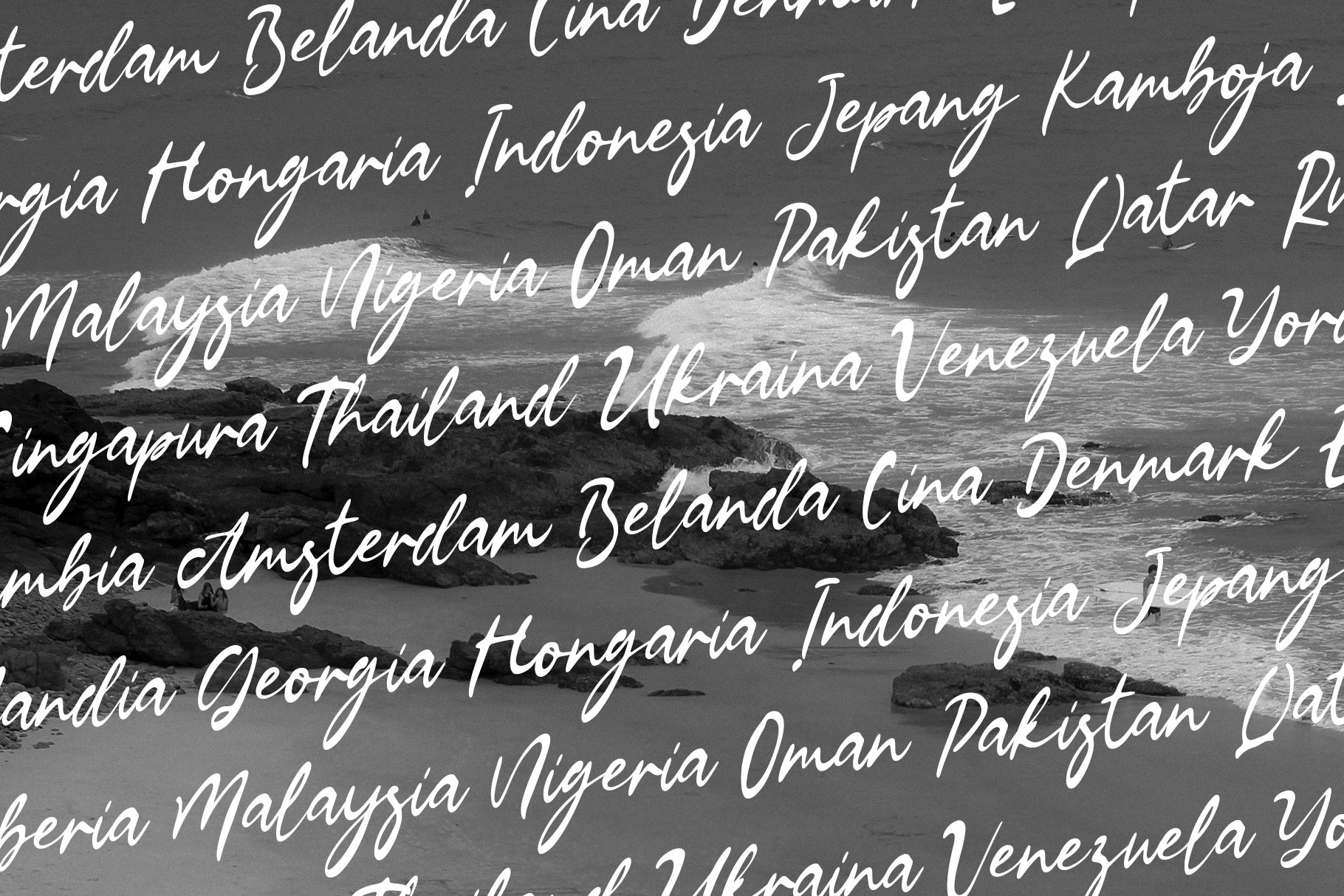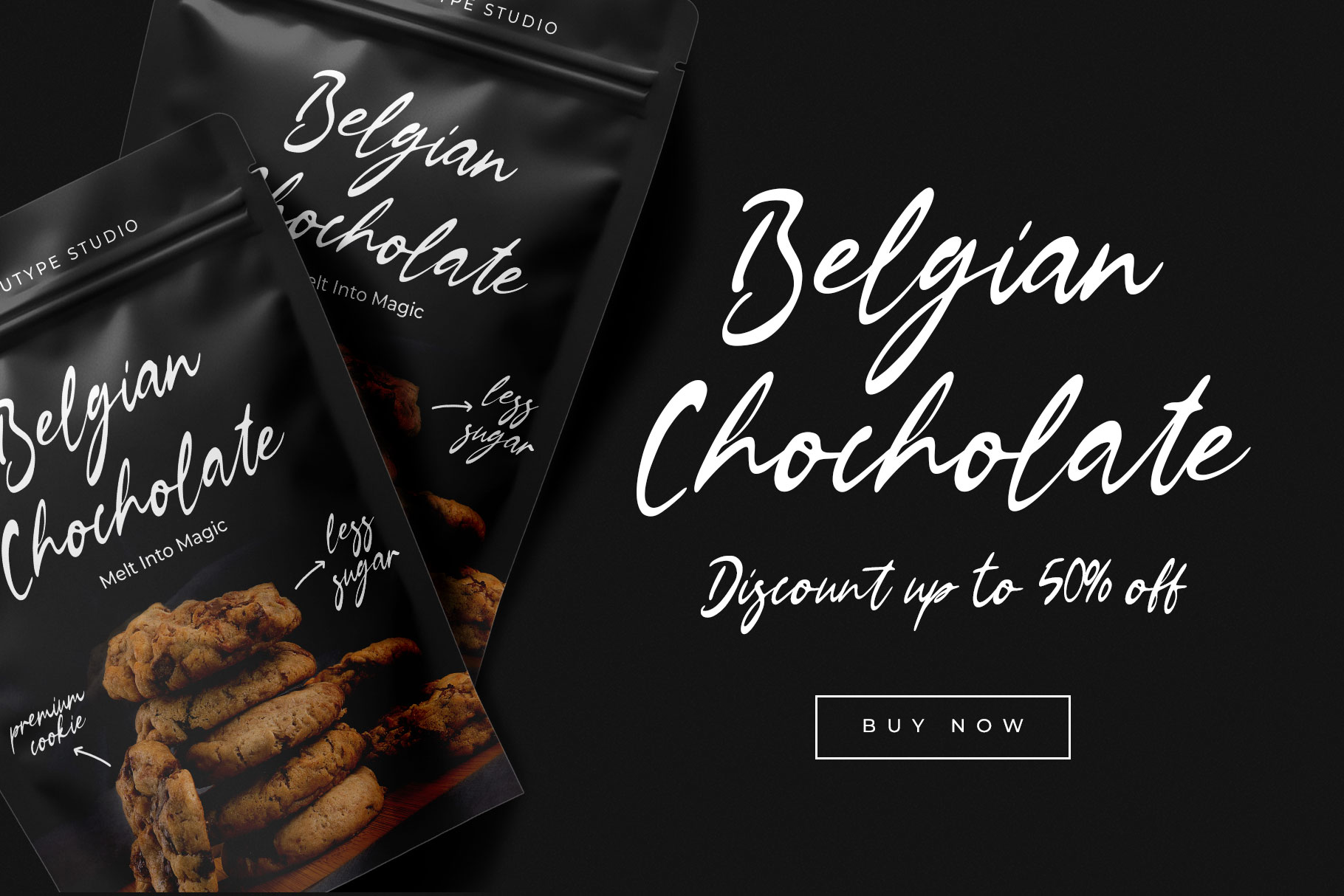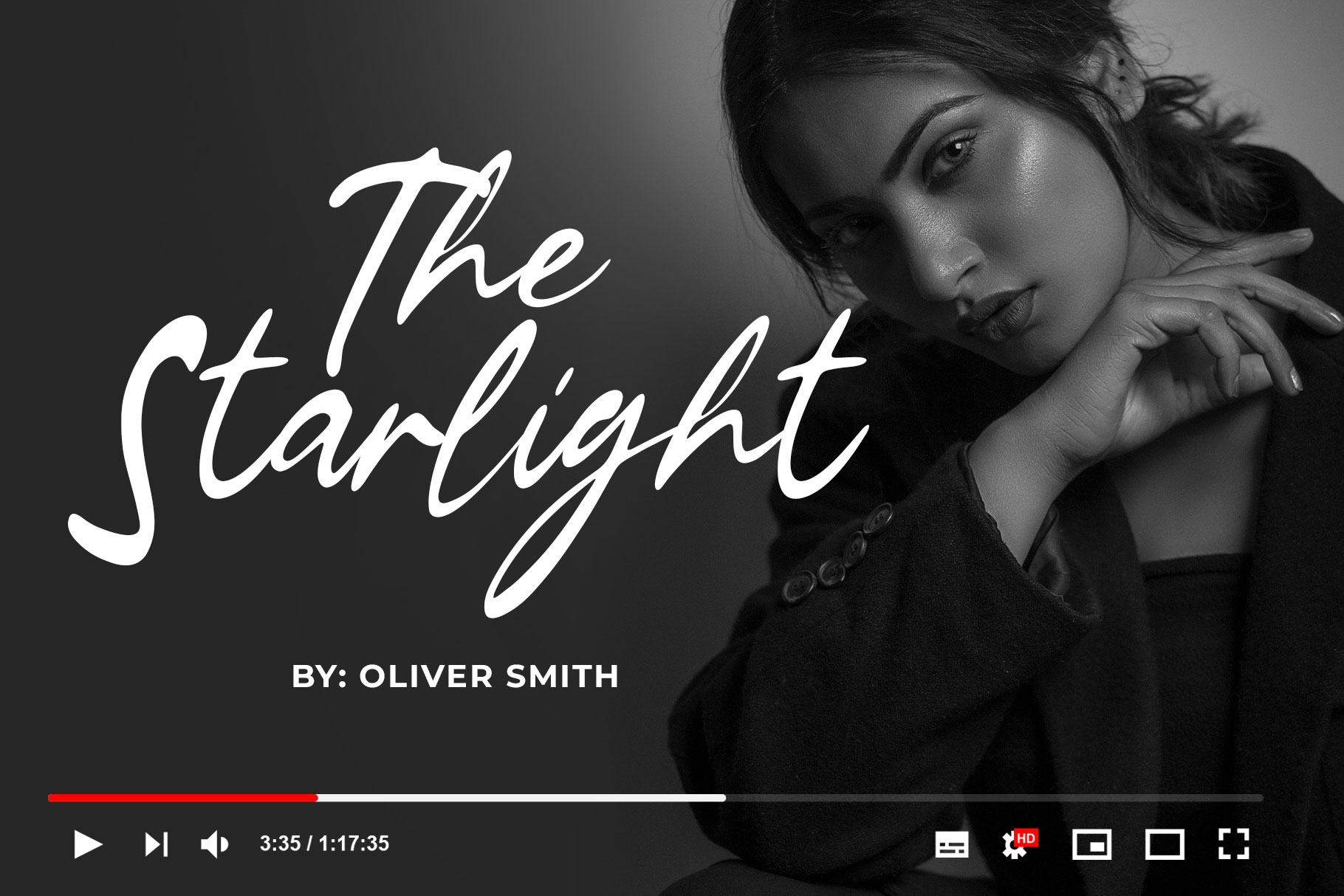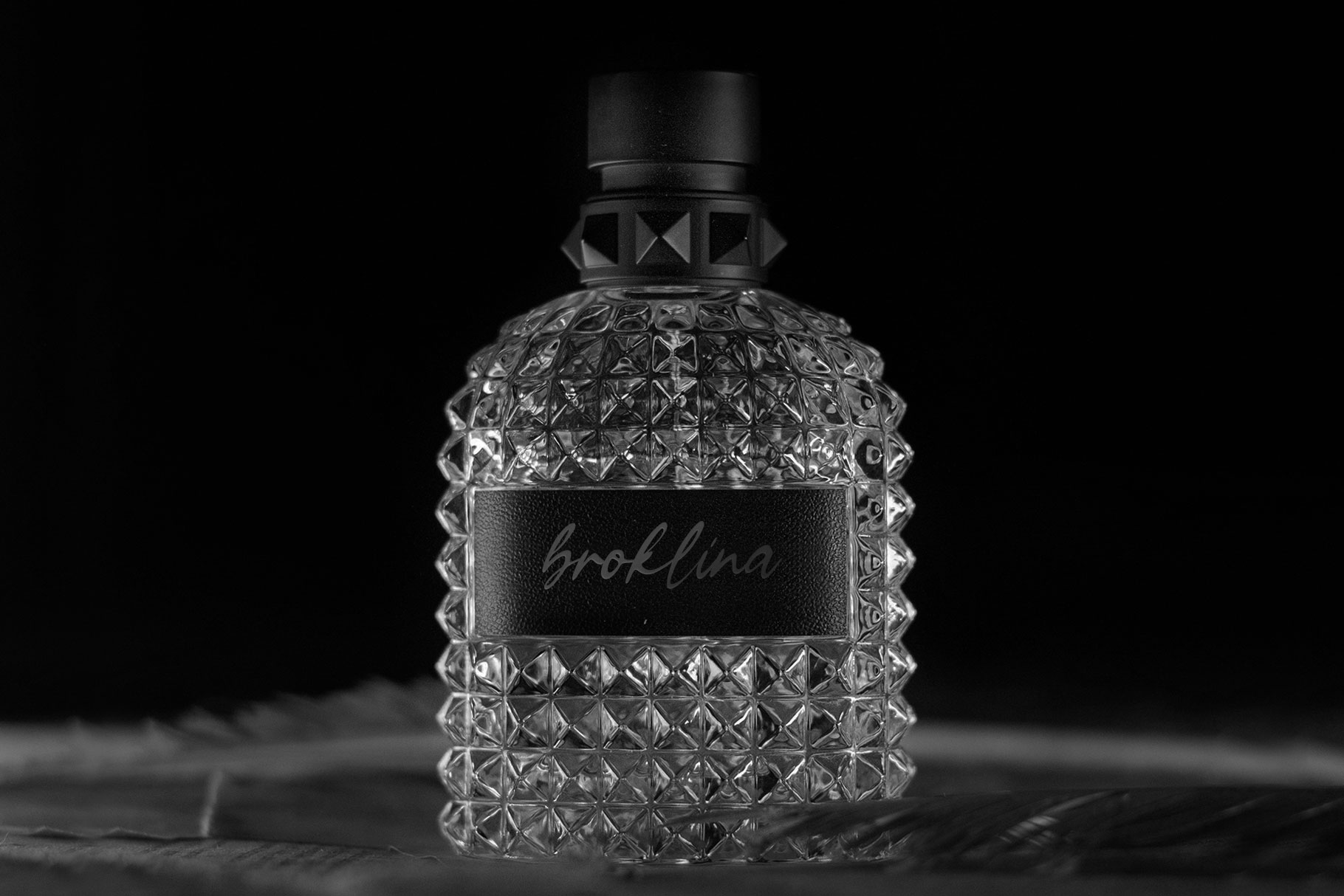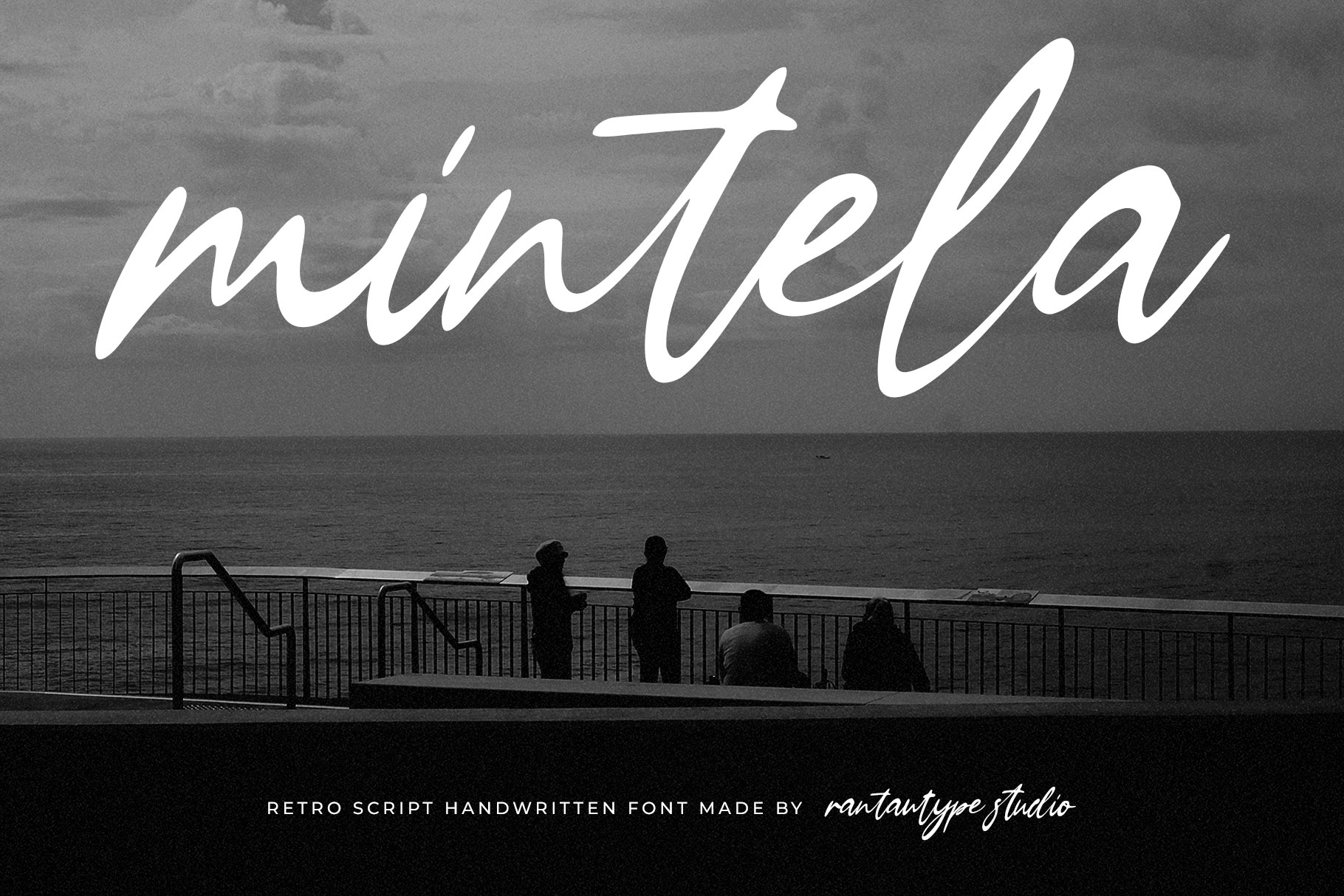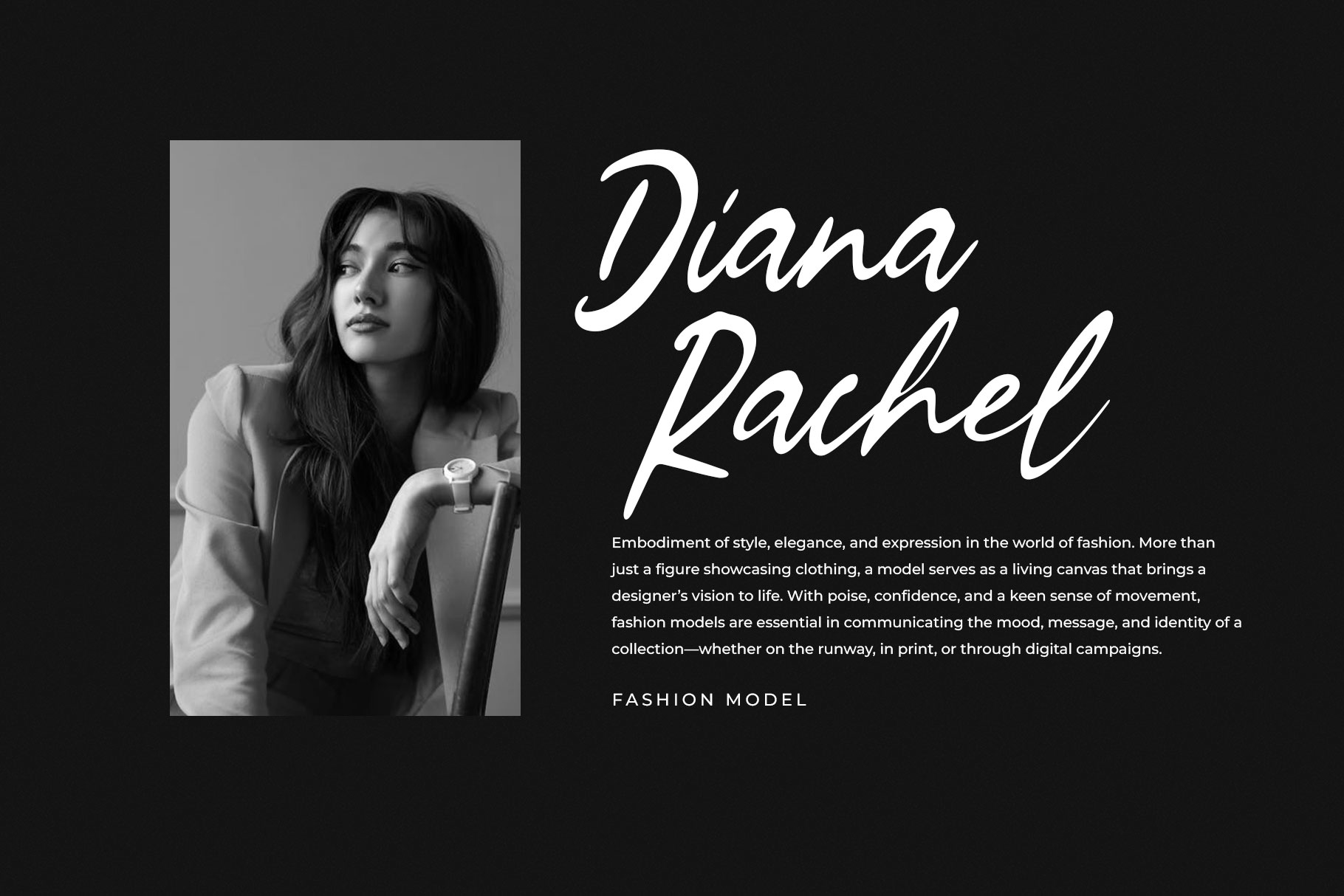
Mintela Retro Script Font
Mintela is retro script font with natural character. Mintela is a perfectly choice for any creative endeavor, creating, modern, lifestyle design such as logotype, title, cover, branding, invitations, wedding designs, display and magazine, social media posts, advertisements, printed quotes, product packaging, corporate brand, product designs, labels, photography, watermarks, special events and any other project with natural touch.